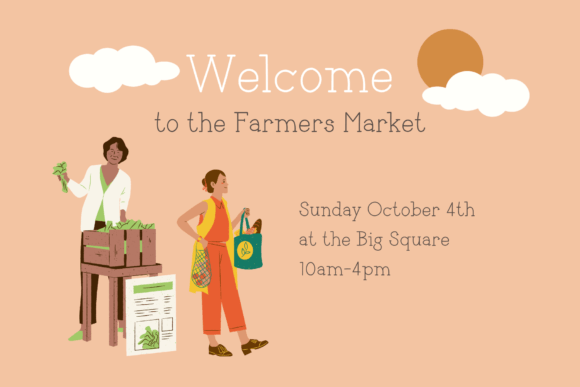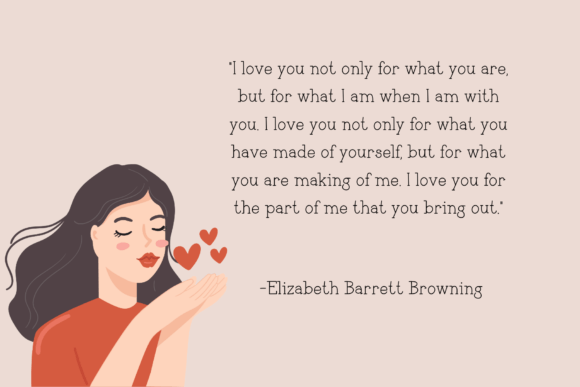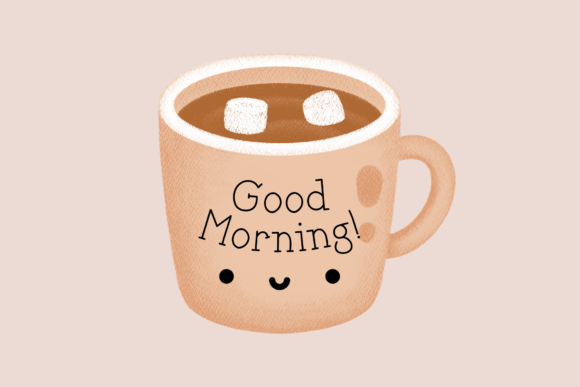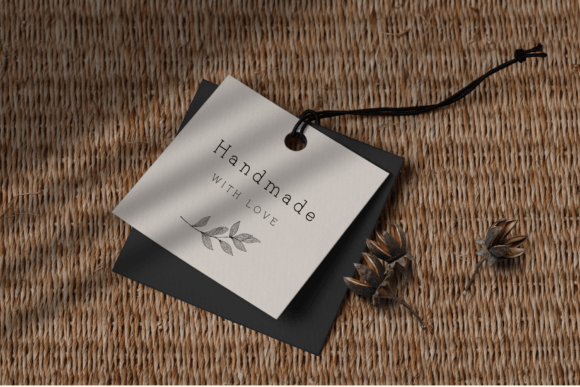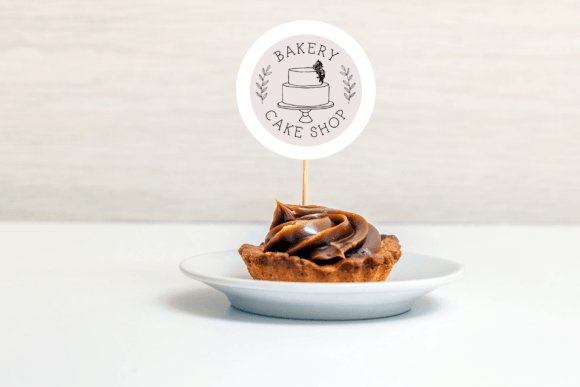
Darling Font
About Darling Font
Darling is a cozy, quirky, and cute handwritten font. Use Darling to create super cute farmhouse logos, branding, notebooks, journals, labels, stickers, blogs, quotes, greeting cards, tea towels, apparel, pillows, mugs, toys, posters, baby clothing, picture books and so much more… basically, anything that requires a fun and joyful look!